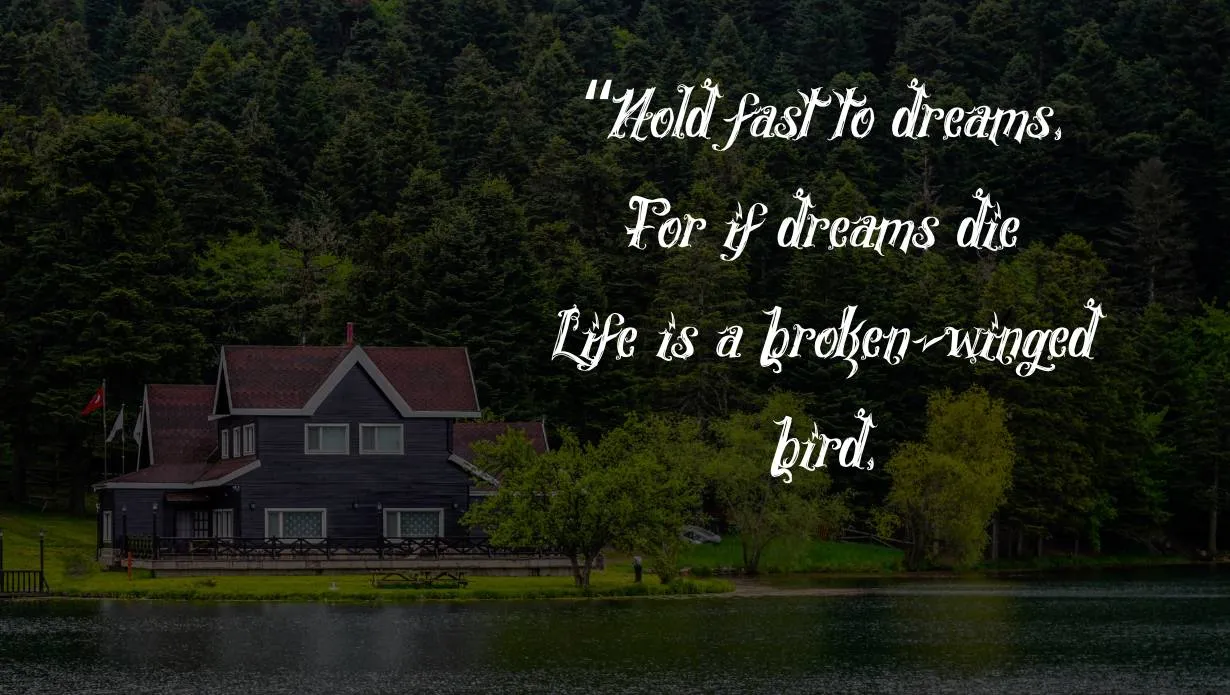
Royal Vanity Font offers an elegant and regal look, perfect for upscale branding and formal designs.
Its well-proportioned letterforms and traditional style convey a sense of sophistication and prestige, making it a preferred choice for high-end projects. The unique texture of this typeface is a magnet for creators, and there is a selection of other fantastic typefaces, like Lipstick Font and Nature Beauty Font, for you to explore.